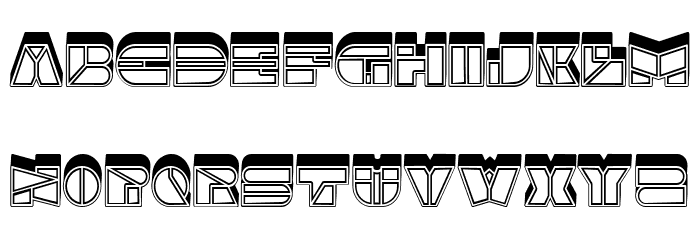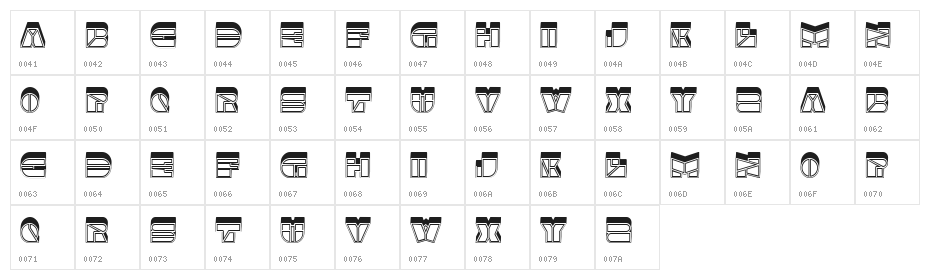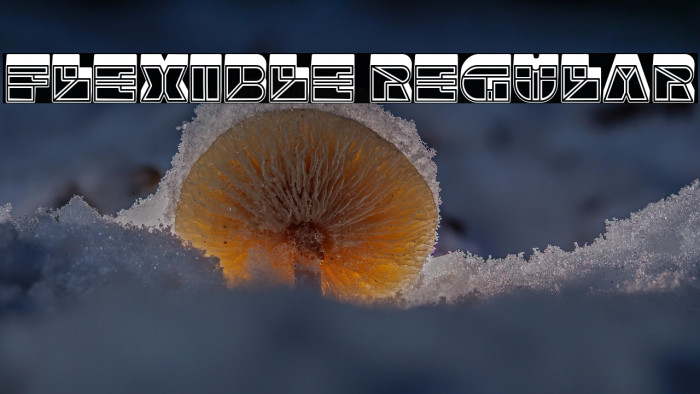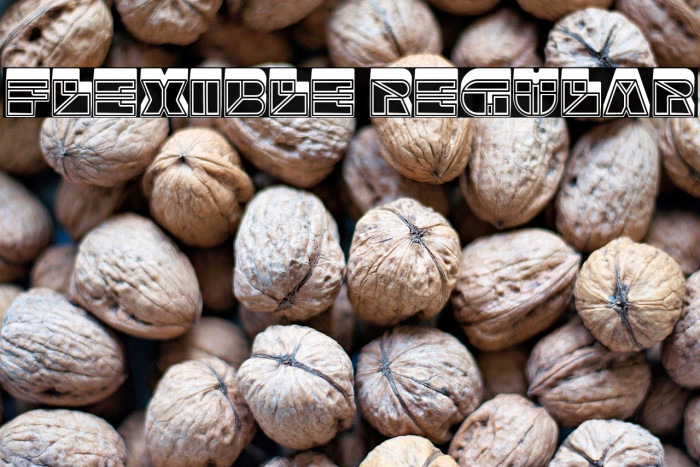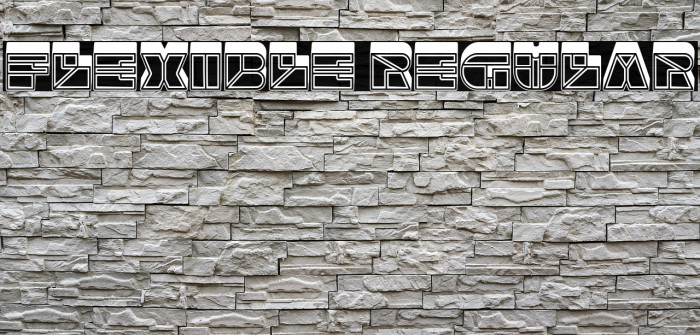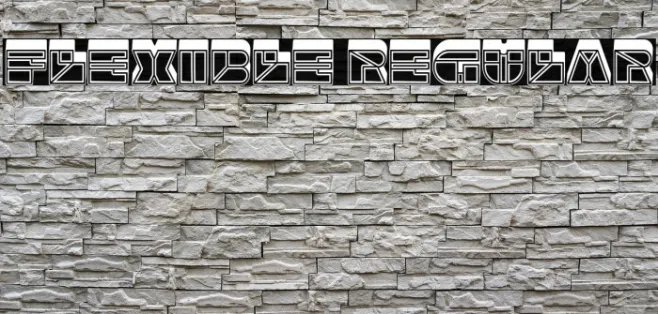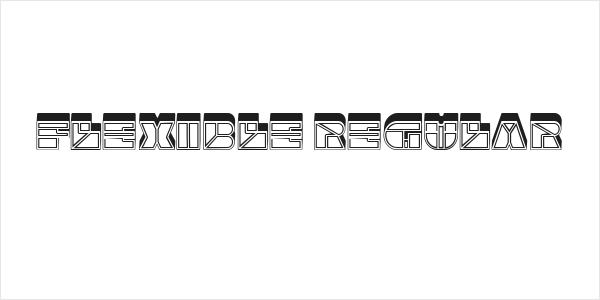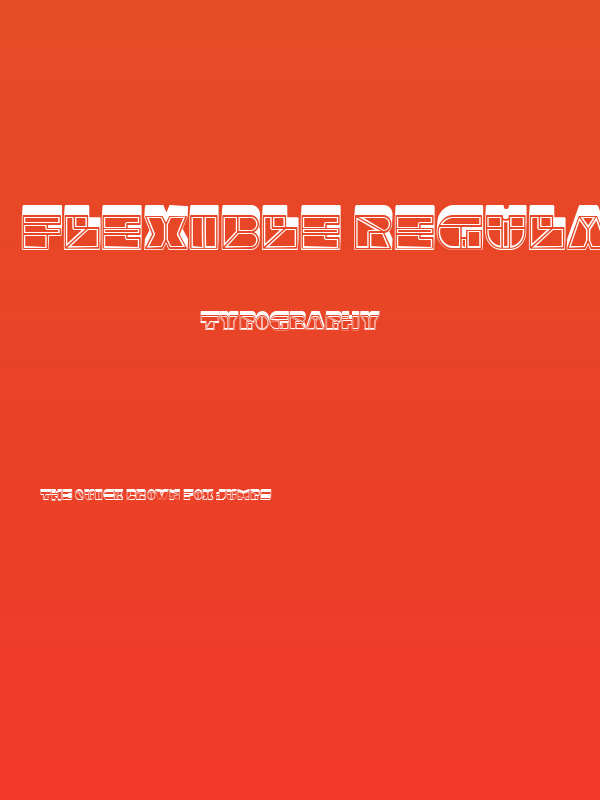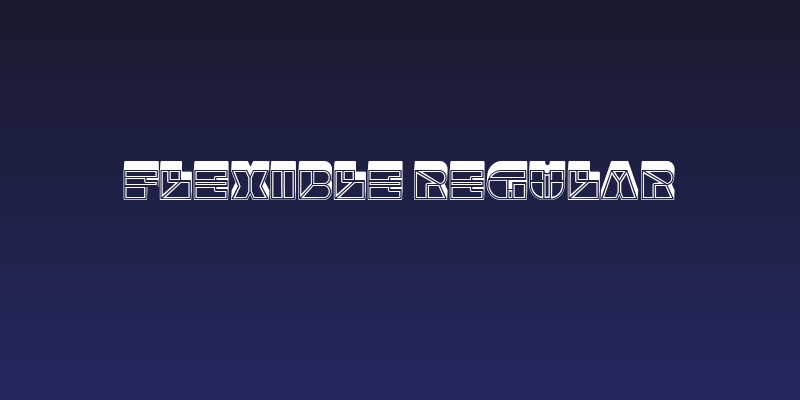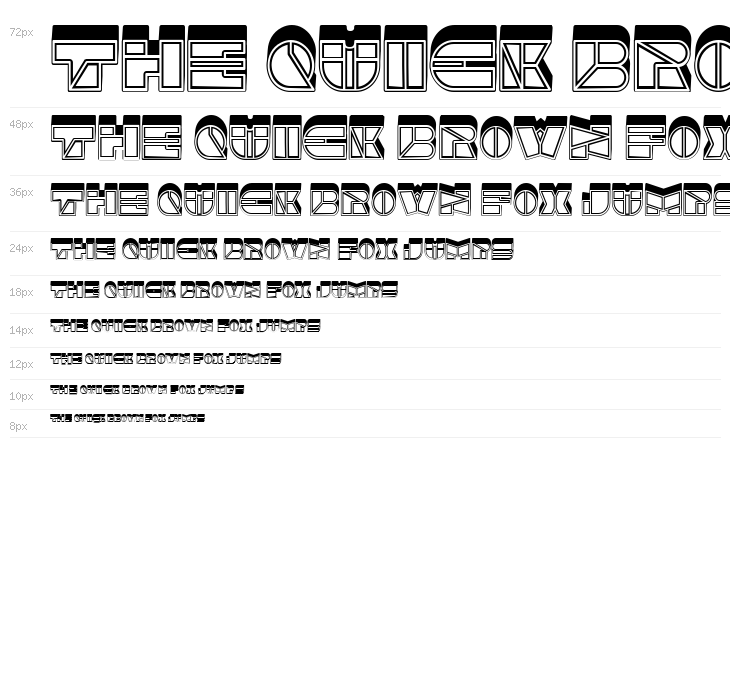
Flexible Regular Font
Flexible Regular Description
This font features a unique, geometric design with a futuristic and industrial feel. Each character is constructed with bold, angular lines and intricate patterns, creating a layered effect that adds depth and dimension. The uppercase letters are particularly striking, with their complex shapes and strong presence. The font maintains a consistent style throughout, with each letter exhibiting a balance of solid and outlined elements. This design is both eye-catching and versatile, making it suitable for a variety of creative applications.